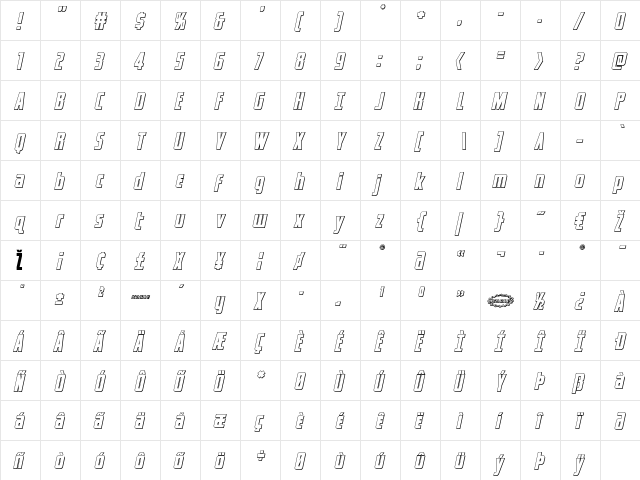
Captain Canaveral Outline Ital Outline
Design Context for Captain Canaveral Outline Ital Typeface
Captain Canaveral Outline Ital brings ornamental detail and strong personality to headlines and identities, where visual impact matters more than quiet functionality.
Font Pairing: Pair with a clean neutral sans-serif for body copy to let Captain Canaveral Outline Ital's character lead without overwhelming the composition.
Pro Tip: Use Captain Canaveral Outline Ital exclusively at display sizes — it was designed to be seen, not read at length. Let a neutral companion handle body copy.